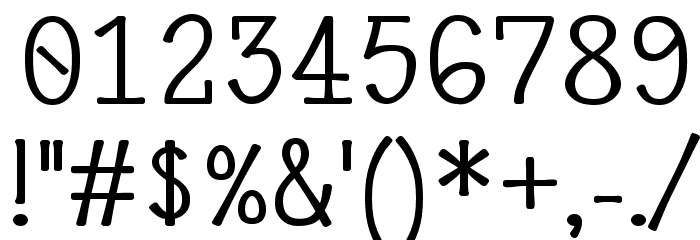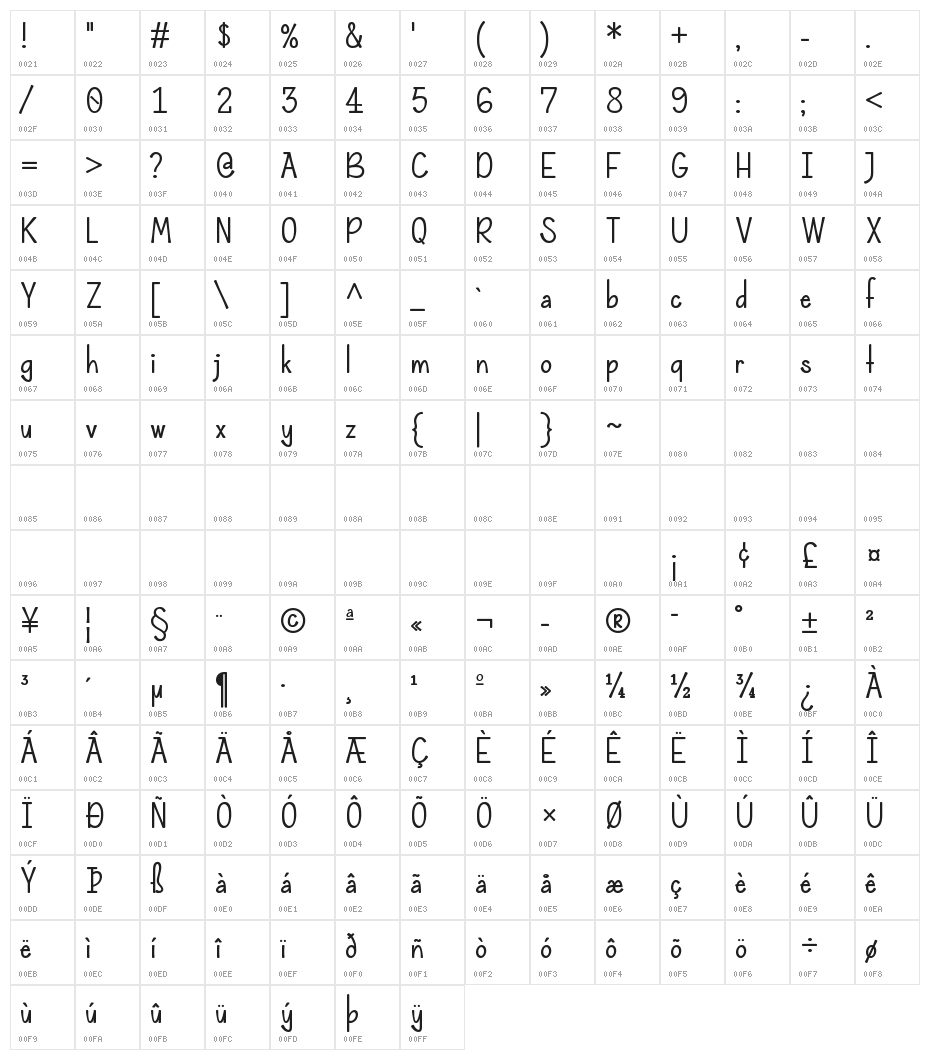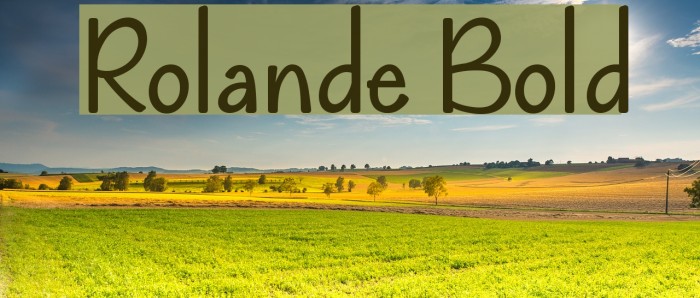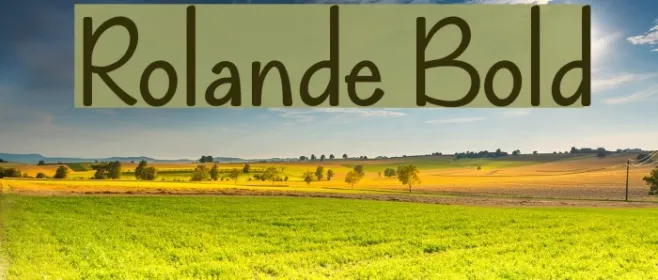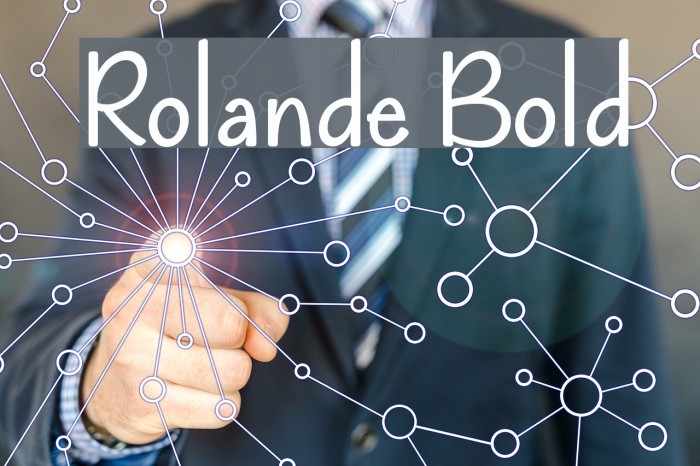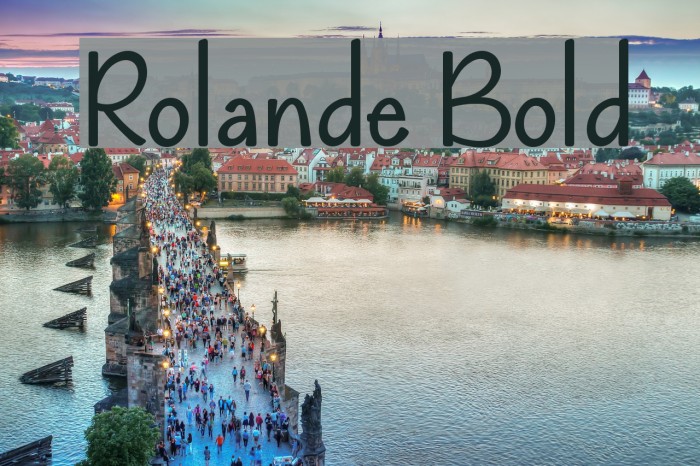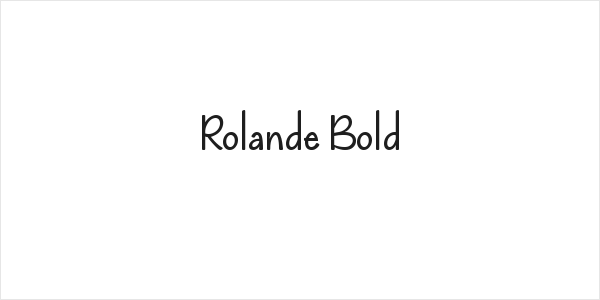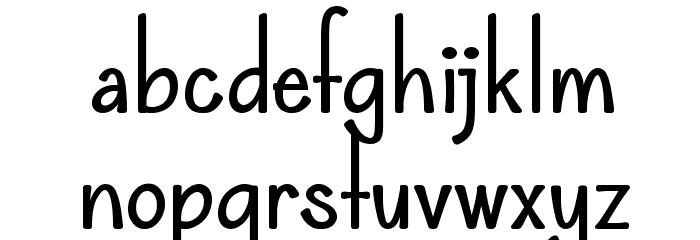
Rolande Bold Font
Rolande Bold Description
This font features a playful and slightly whimsical design, characterized by its rounded edges and informal style. The uppercase letters are tall and narrow, while the lowercase letters maintain a consistent height, creating a harmonious balance. The numerals are clear and easy to read, with a slight curve that adds to the overall friendly appearance. Special characters are well-integrated, maintaining the font's cohesive look. The strokes are consistent in thickness, providing a uniform appearance across all characters.
| Proposed Projects | Ideal for children's books, playful branding, casual invitations, and creative projects that require a friendly and approachable feel. |